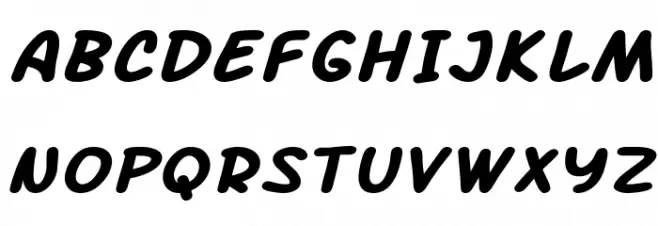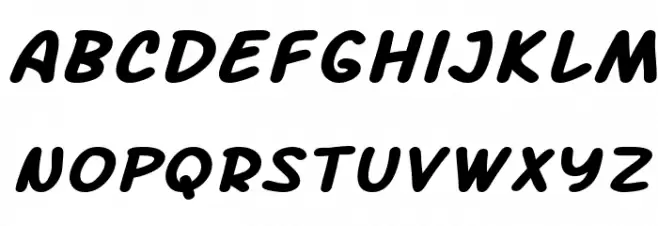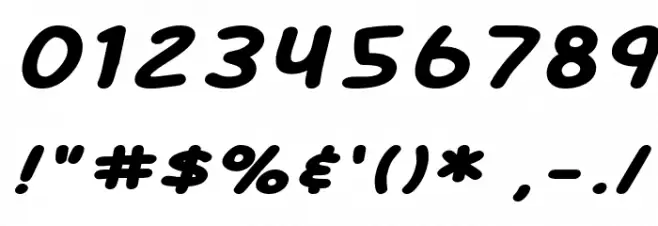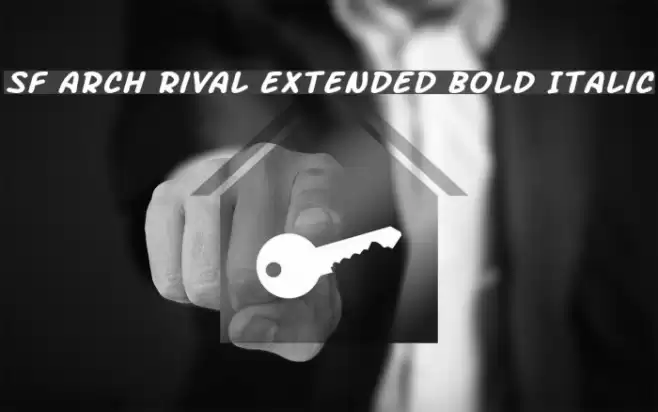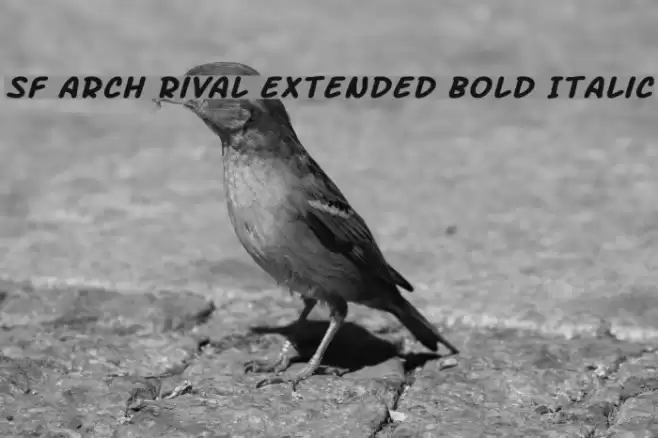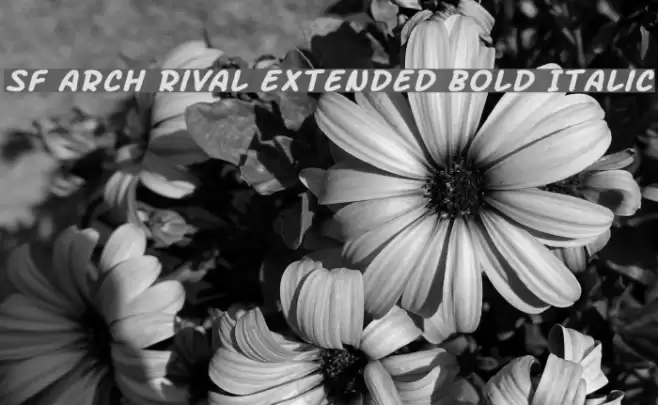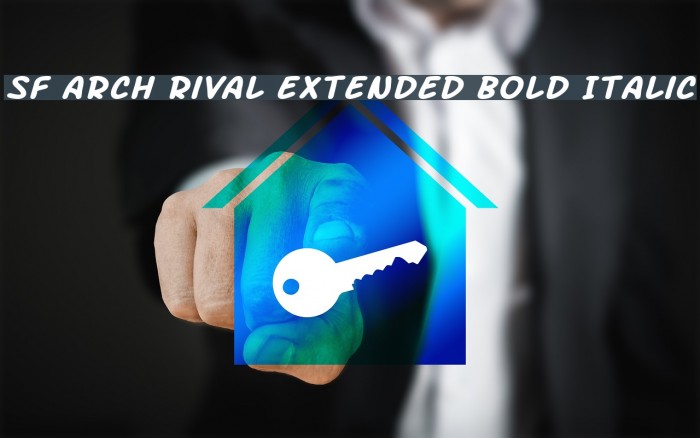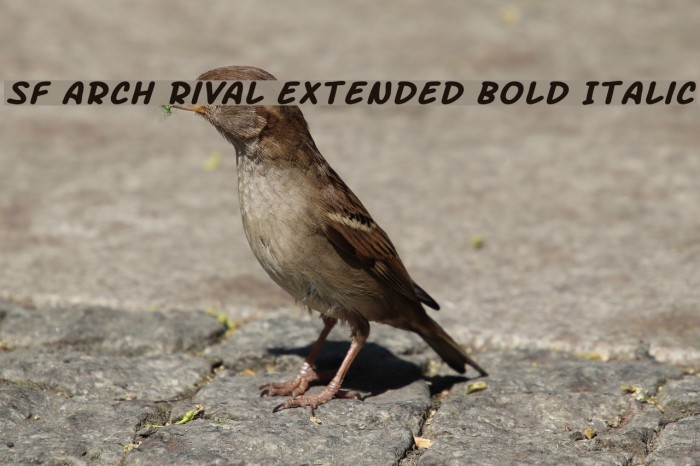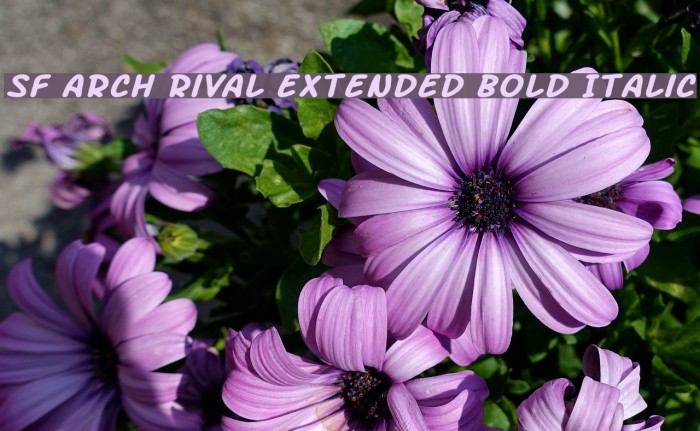
SF Arch Rival Extended Bold Italic
This font features a bold and italicized style with extended letterforms, giving it a dynamic and energetic appearance. The characters are rounded and slightly slanted, adding a sense of movement and playfulness. The uppercase and lowercase letters maintain a consistent weight, contributing to a cohesive look. The numerals are clear and bold, ensuring readability. Special characters are well-defined, complementing the overall style. This font's unique design makes it suitable for projects that require a lively and engaging typeface.
A bold, italicized font with extended, rounded letterforms and a playful style.
- Proposed Projects: Ideal for sports branding, dynamic posters, playful packaging, and energetic advertising campaigns.
- Width: Expanded